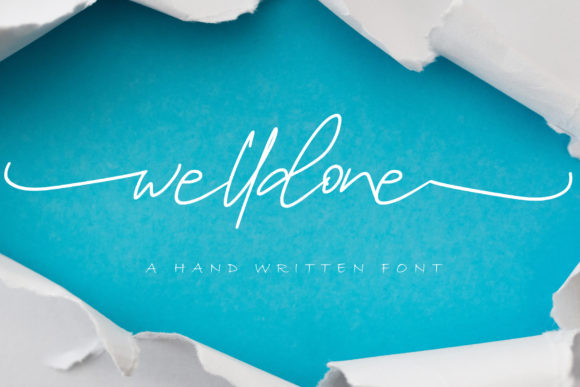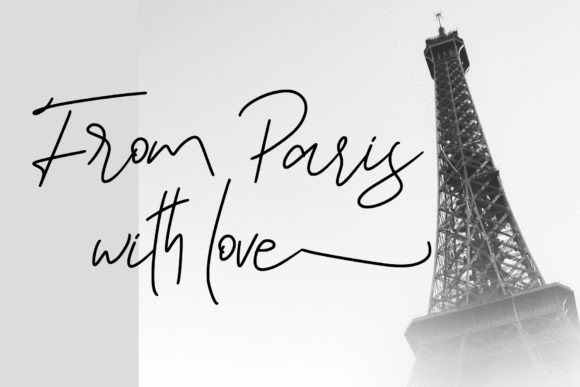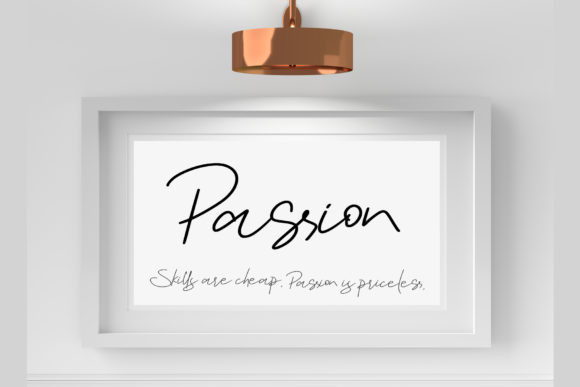
Welldone Font
Welldone is a beautiful light handwritten font with a unique feel and a stunning impact. It will add a luxury spark to any design project that you wish to create! This font is PUA encoded which means you can access all of the glyphs and swashes with ease!